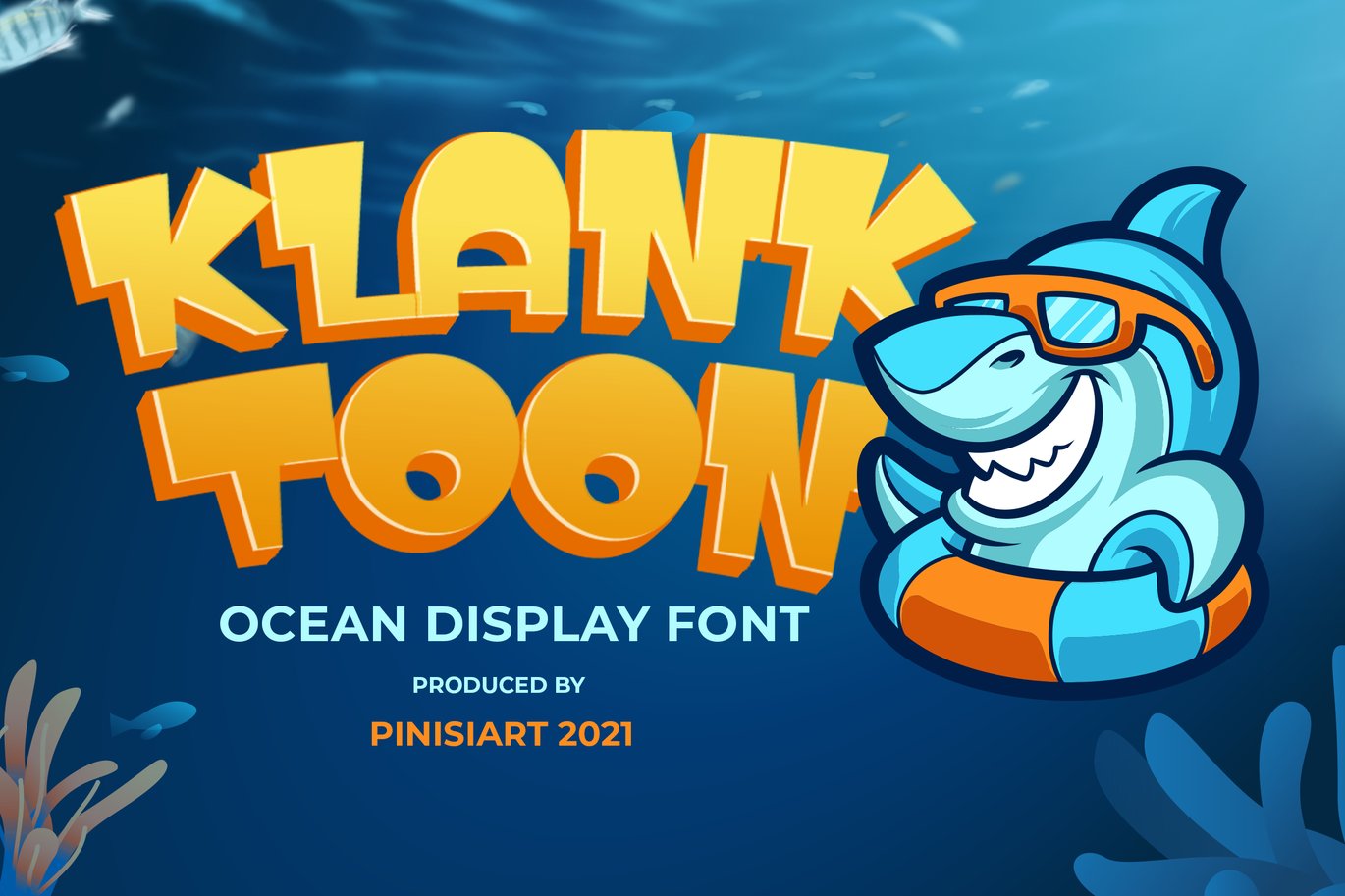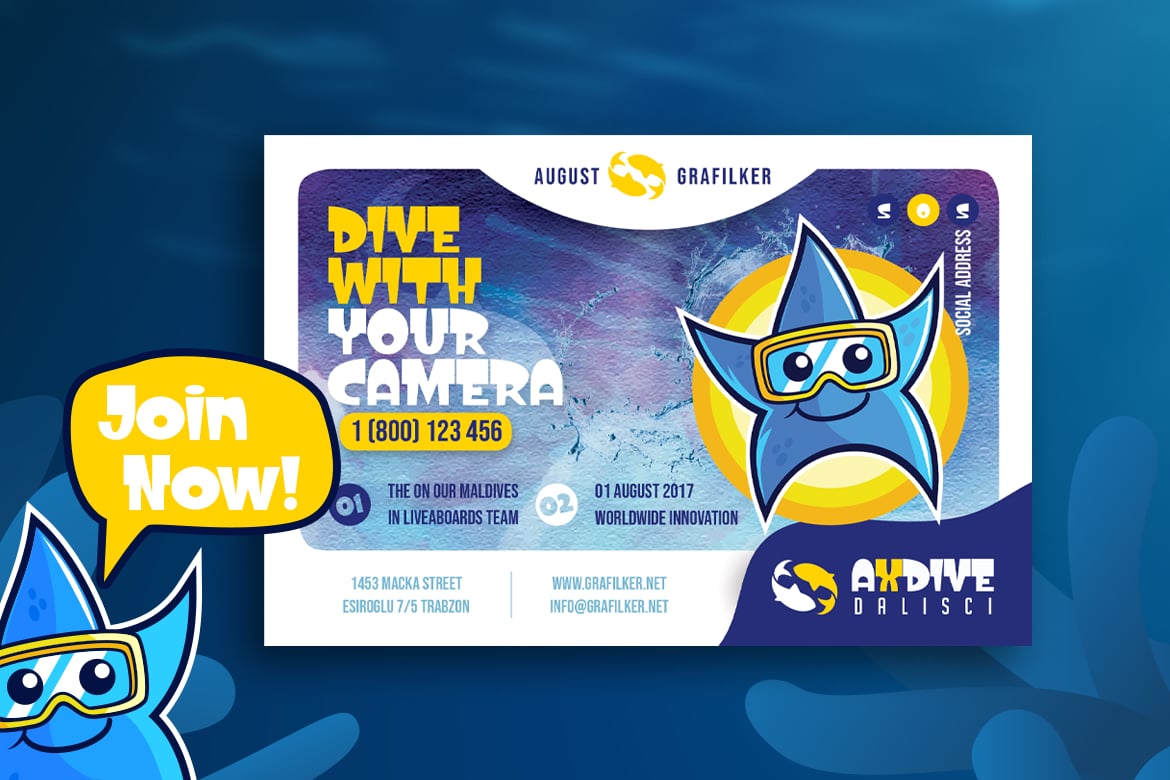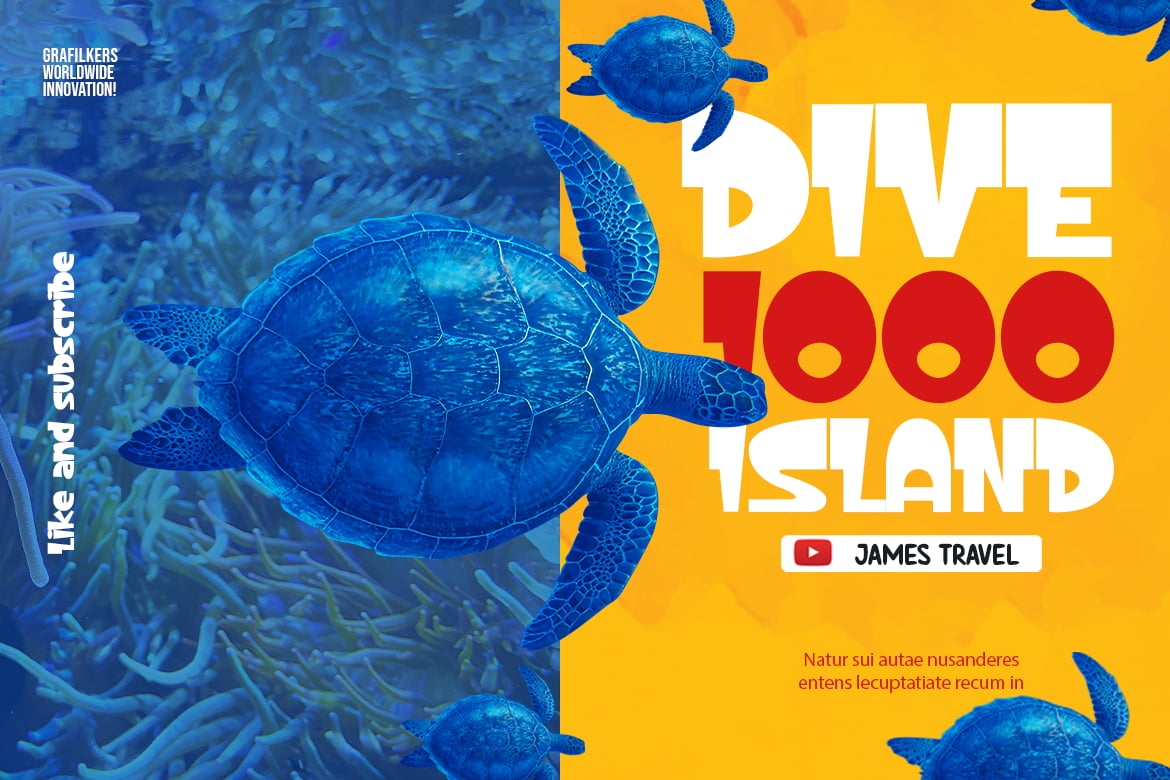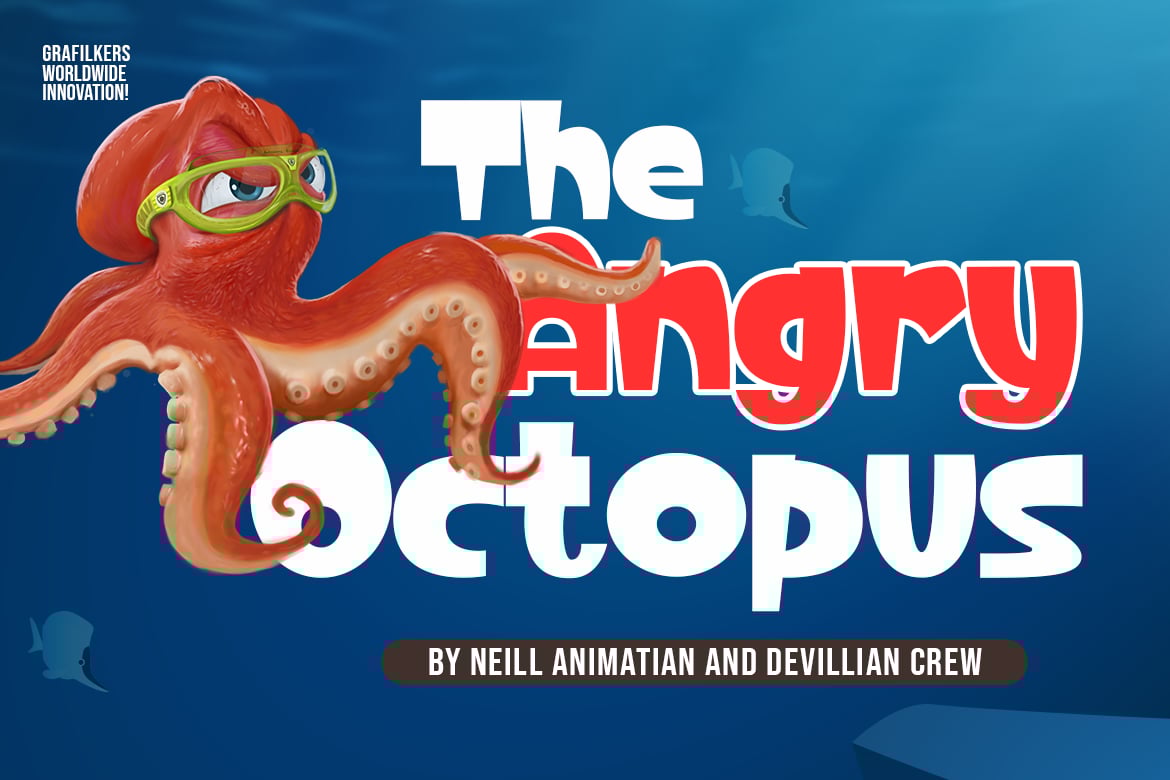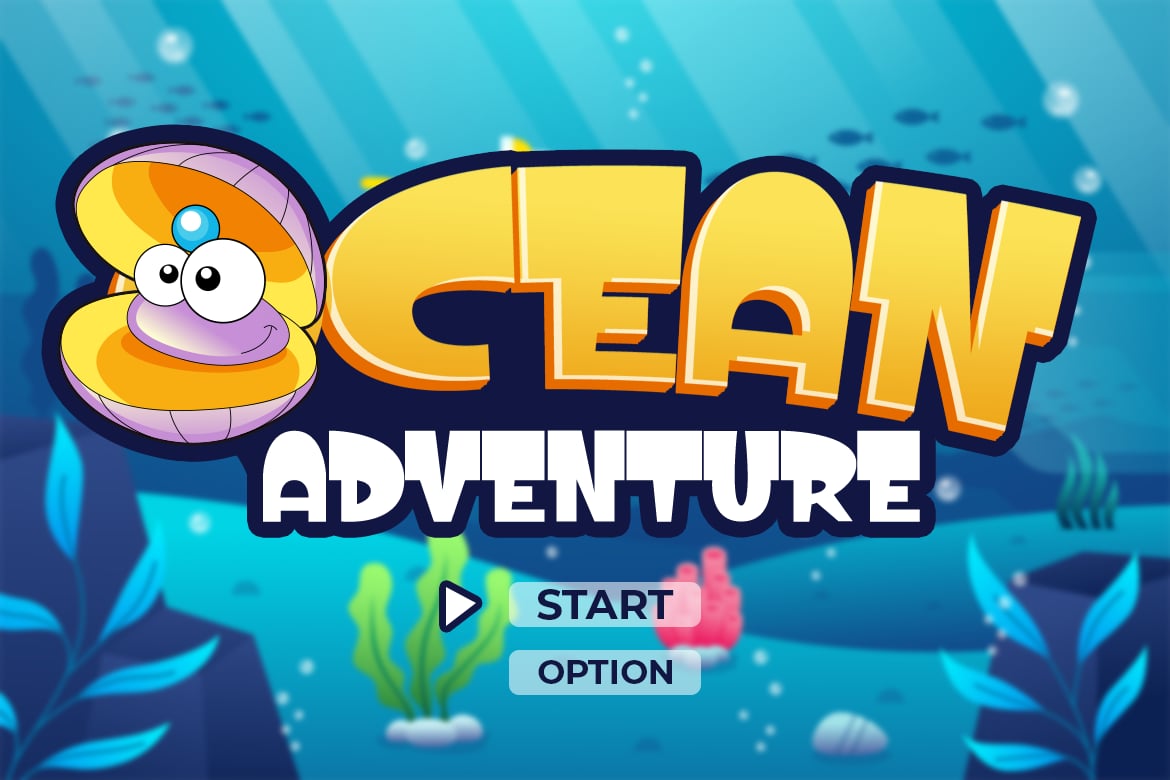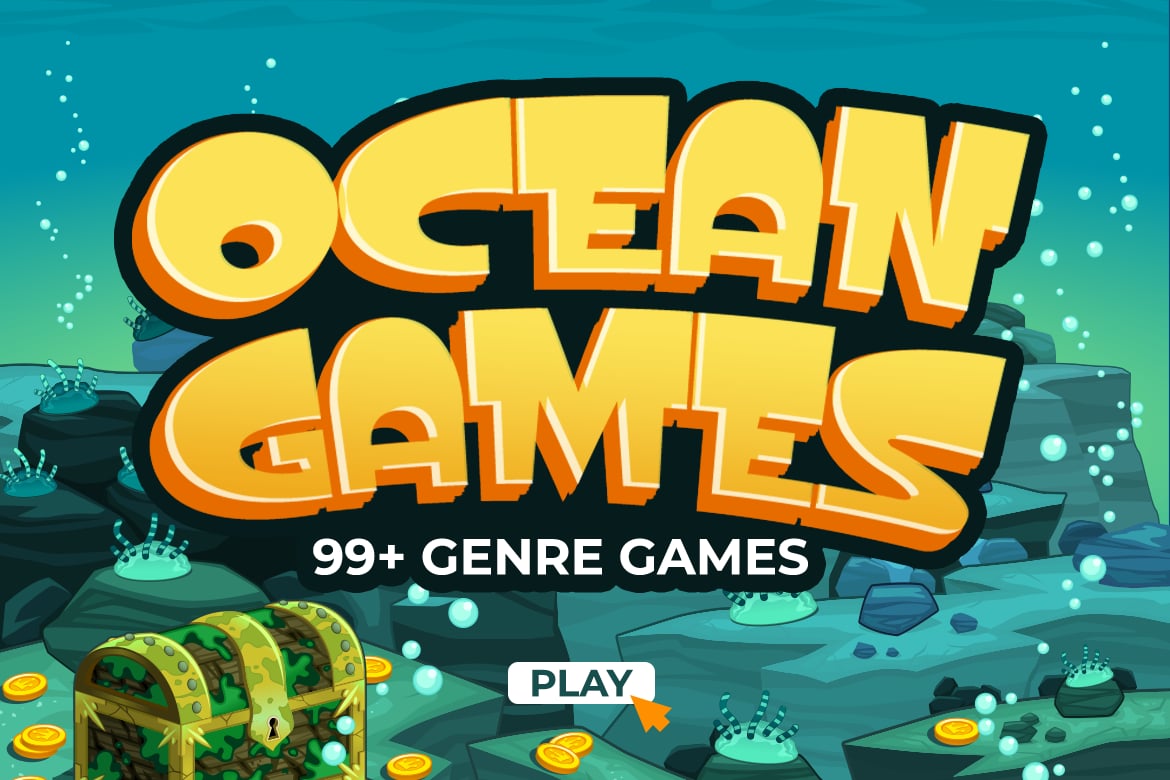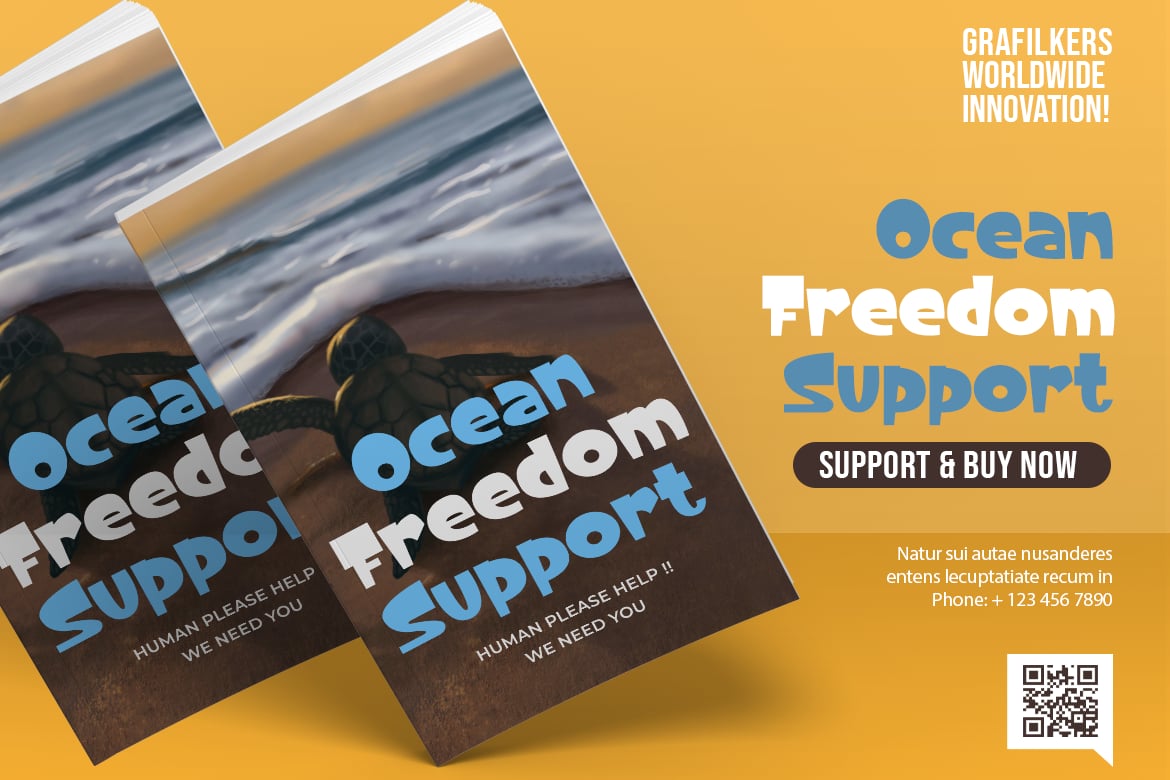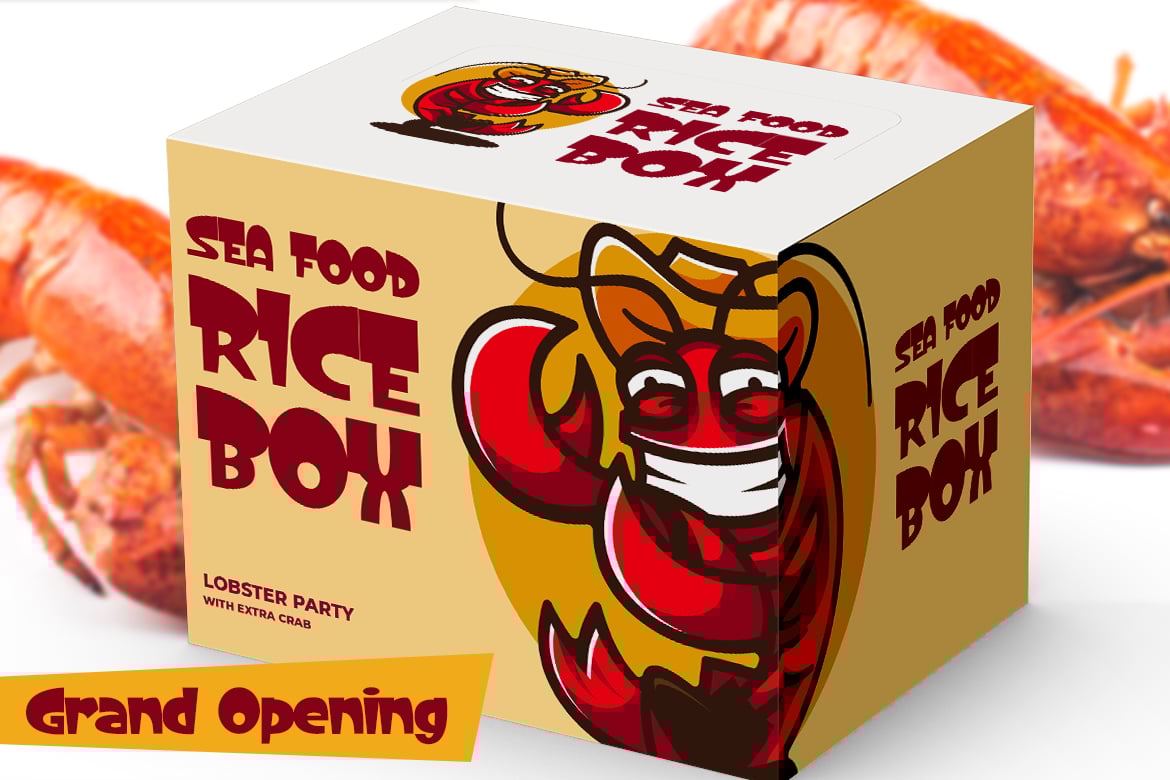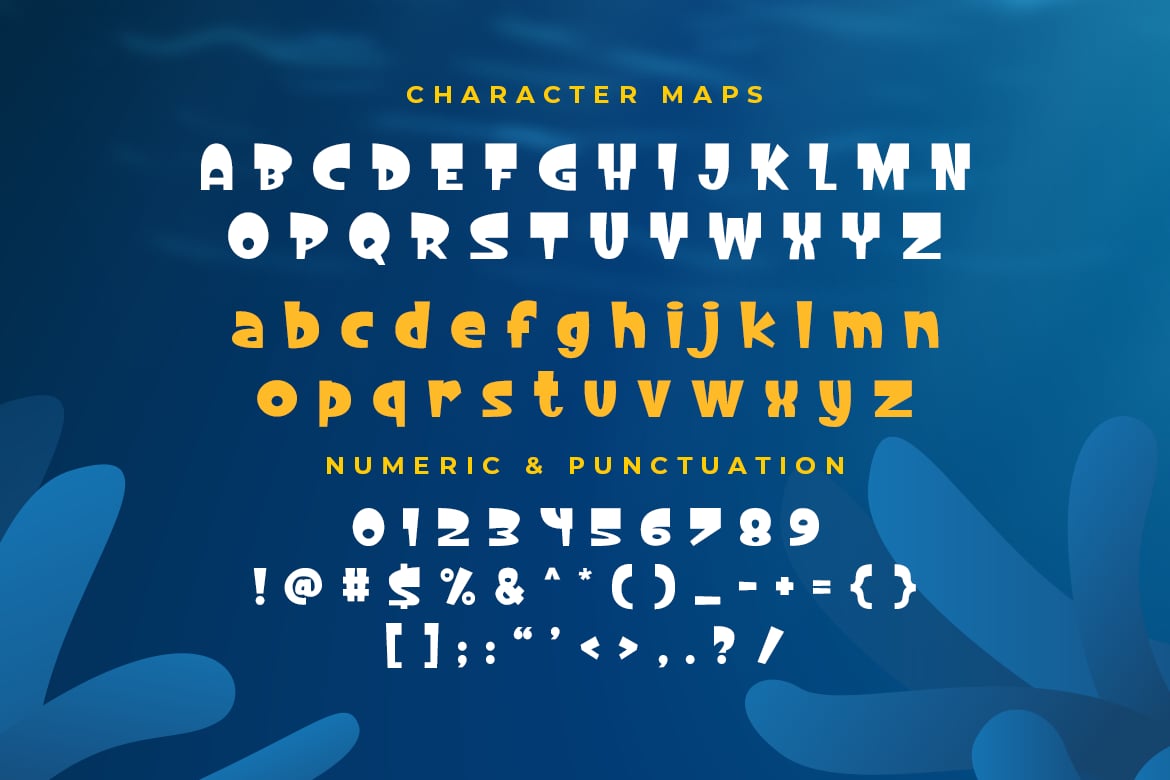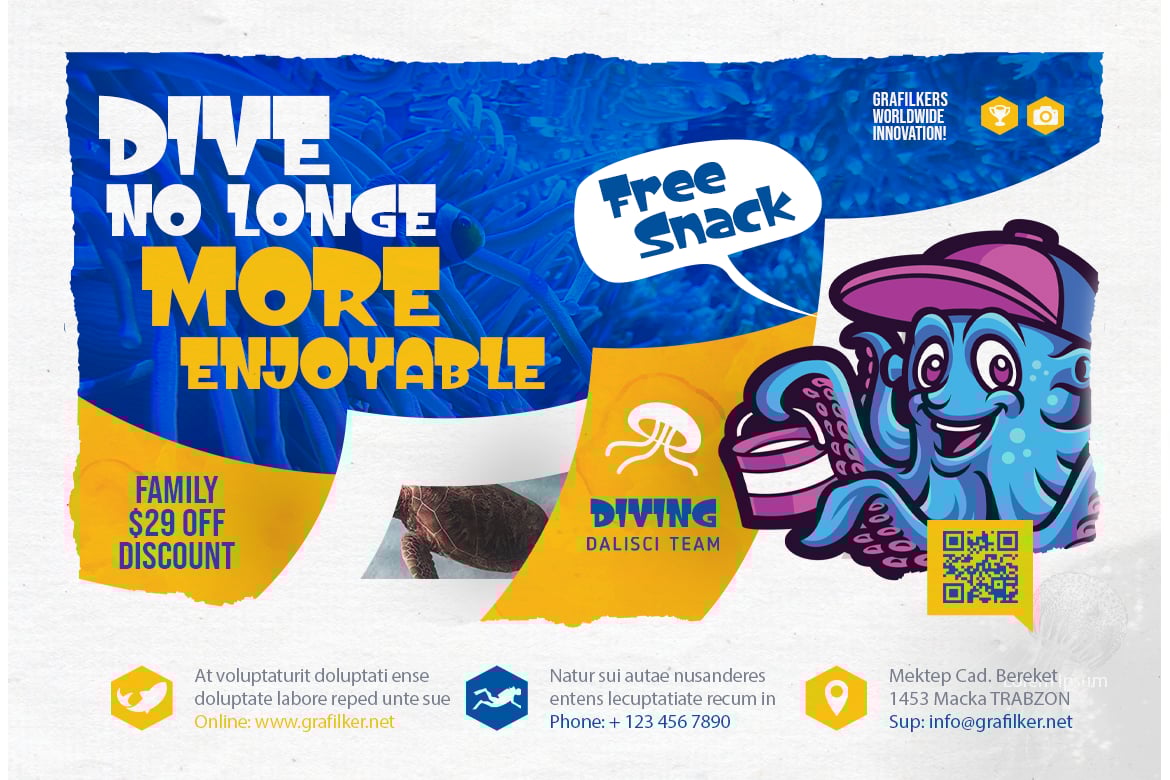
KLANKTOON – cartoon font
Imagine diving in the ocean, and hear a loud KLANK right by yourside.
It was a friendliest shark with that huge smile and his buddy octopus waving toward you.
What an absolute twist from a terrifying scene to the most comfortable chit-chat in the ocean.
Suit perfectly for animal themes books market, online games, stationary, school supplies font, poster, movie title, youtube covers, youtube thumbnails, social media page covers and so on…